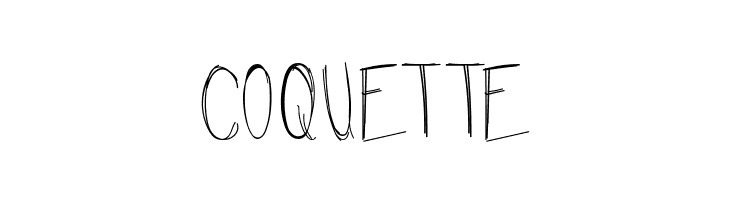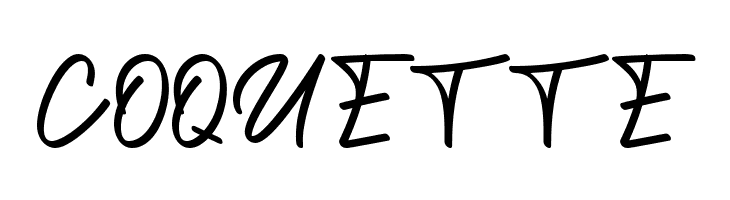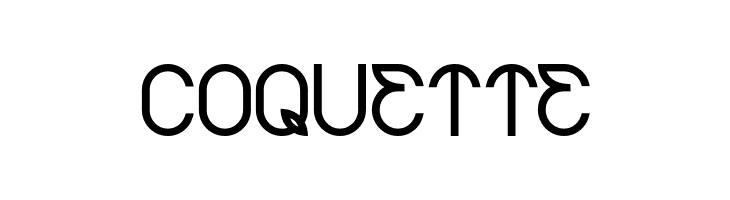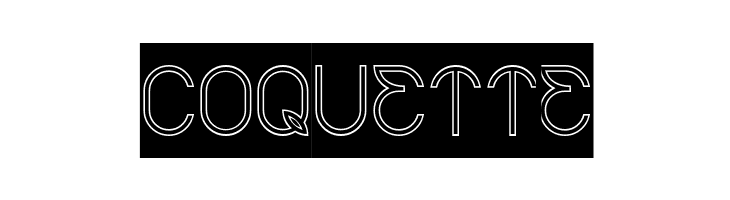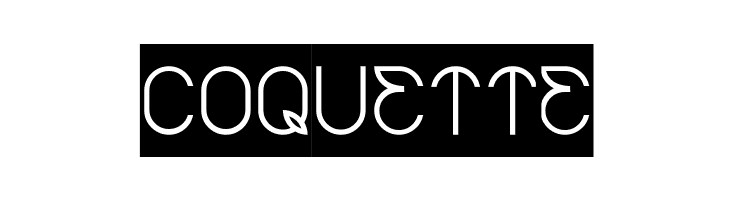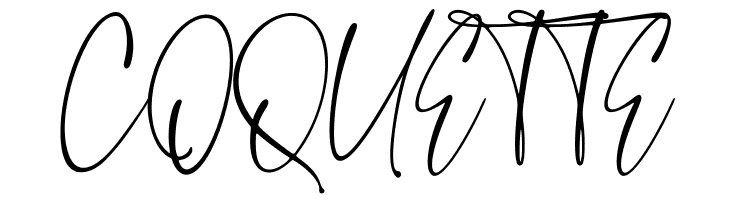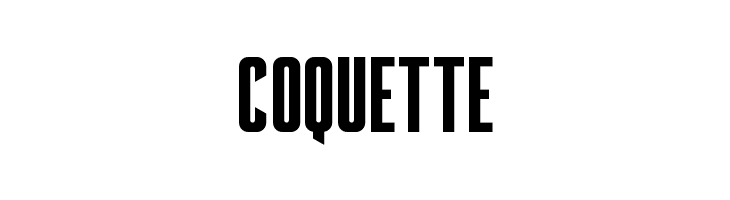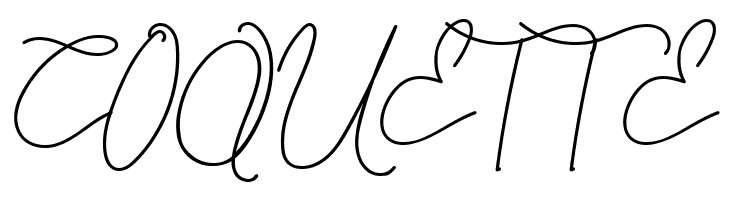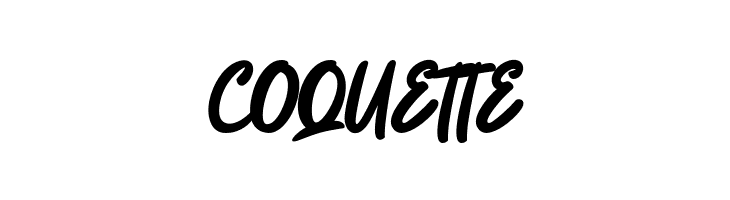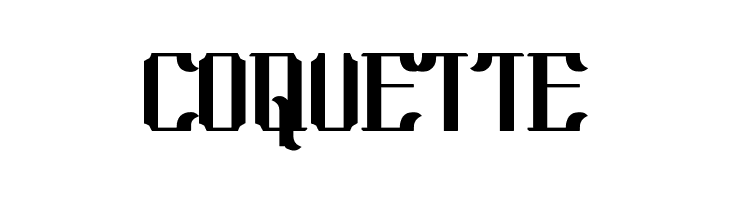
A bold, textured font with a rough, hand-drawn appearance.
A playful, bold font with rounded, thick strokes and a whimsical style.
A playful, zigzag-patterned font with a hand-drawn, whimsical style.
A geometric, futuristic font with sharp angles and a modern aesthetic.
A playful, bold font with a hand-drawn, comic-style appearance.
A bold, italic script font with dynamic and flowing characters.
Playful handwritten font with a casual style.
An elegant, flowing script font with thin, delicate lines and graceful curves.
A classic blackletter font with ornate, angular letterforms and a traditional gothic style.
A classic serif font with elegant serifs and medium contrast, ideal for formal and creative uses.
A bold, rounded, and slightly slanted font with a modern and friendly style.
A bold, playful font with rounded edges and a slight slant.
An elegant cursive font with flowing, interconnected strokes and a sophisticated style.
A bold, rounded font with a modern and futuristic style.
A bold, italicized font with smooth, rounded edges and a modern look.
A modern, italicized font with smooth, rounded edges and consistent stroke width.
A modern, hollow, geometric font with clean lines and rounded edges.
A modern, hollow, inverse font with geometric outlines and a futuristic look.
A bold, modern font with an inverse style and geometric shapes.
A modern, rounded geometric font with a clean and cohesive design.
A bold, futuristic font with sharp angles and geometric shapes.
A futuristic, angular italic font with a bold, dynamic style.
A futuristic, hollow font with sharp angles and geometric shapes.
A futuristic, hollow, and geometric font with a technological feel.
A futuristic, geometric font with bold lines and sharp angles.
A futuristic, angular font with bold geometric shapes.
A playful, bubble-like font with rounded, exaggerated characters.
A bold, playful font with rounded, bubble-like characters and a modern, decorative style.
A bold, modern font with a strong geometric structure and rounded edges.
A futuristic, geometric font with bold, angular letterforms.